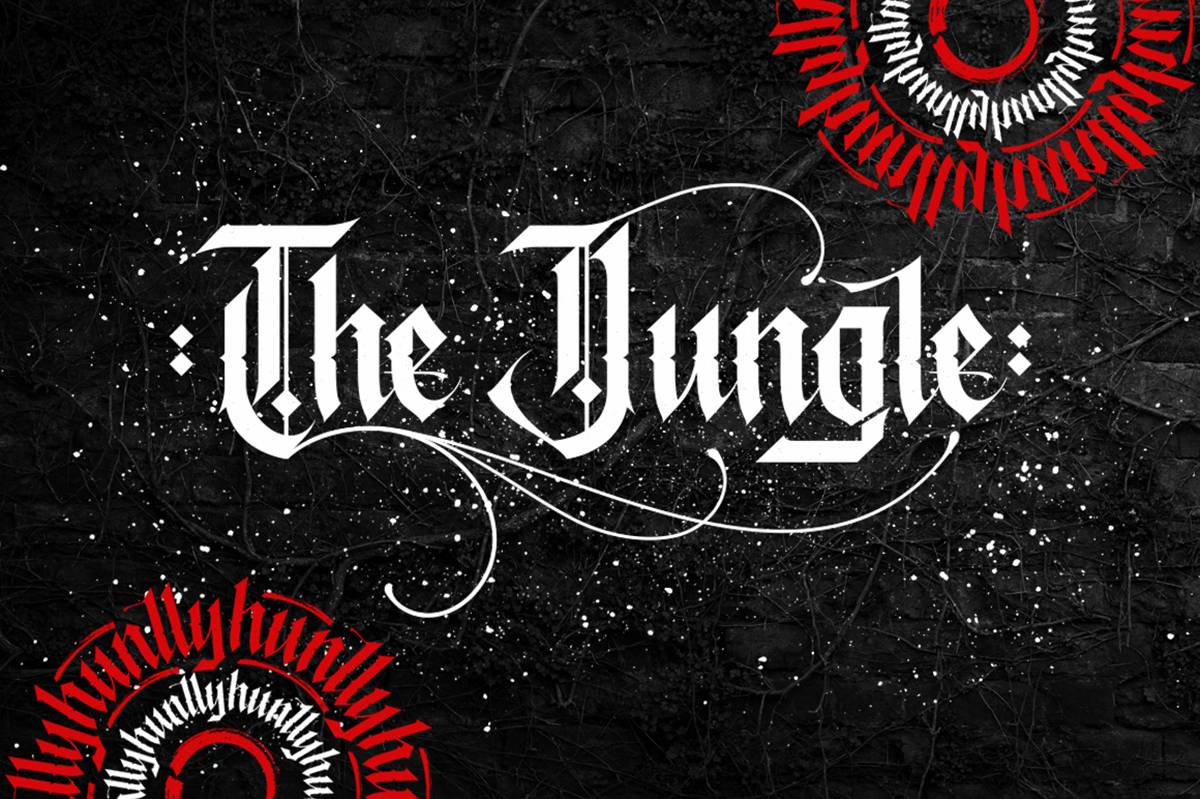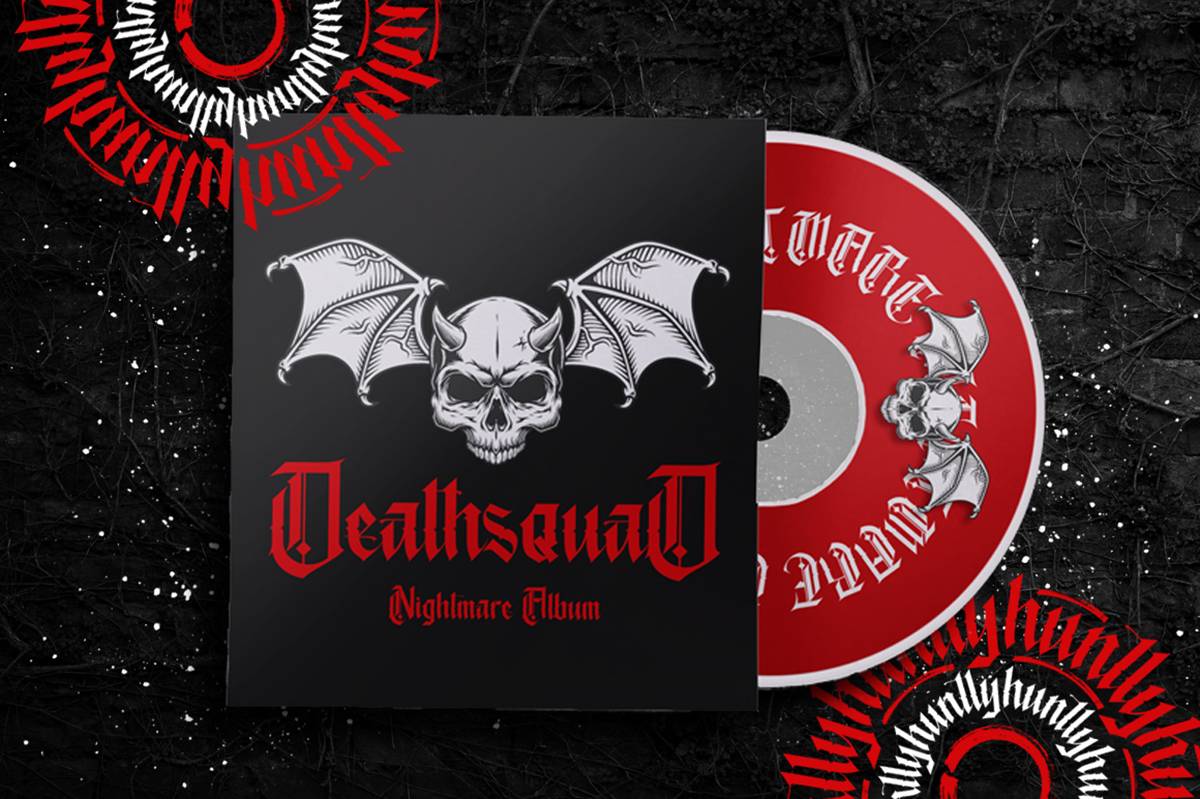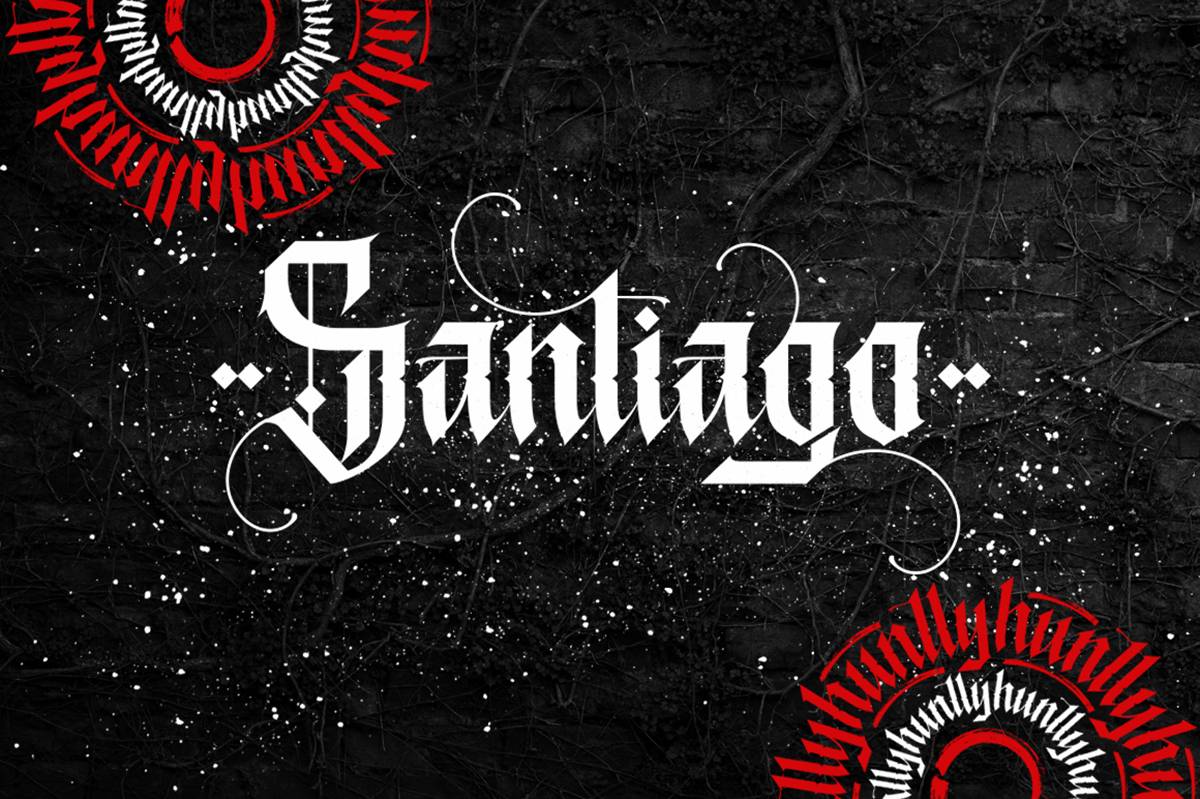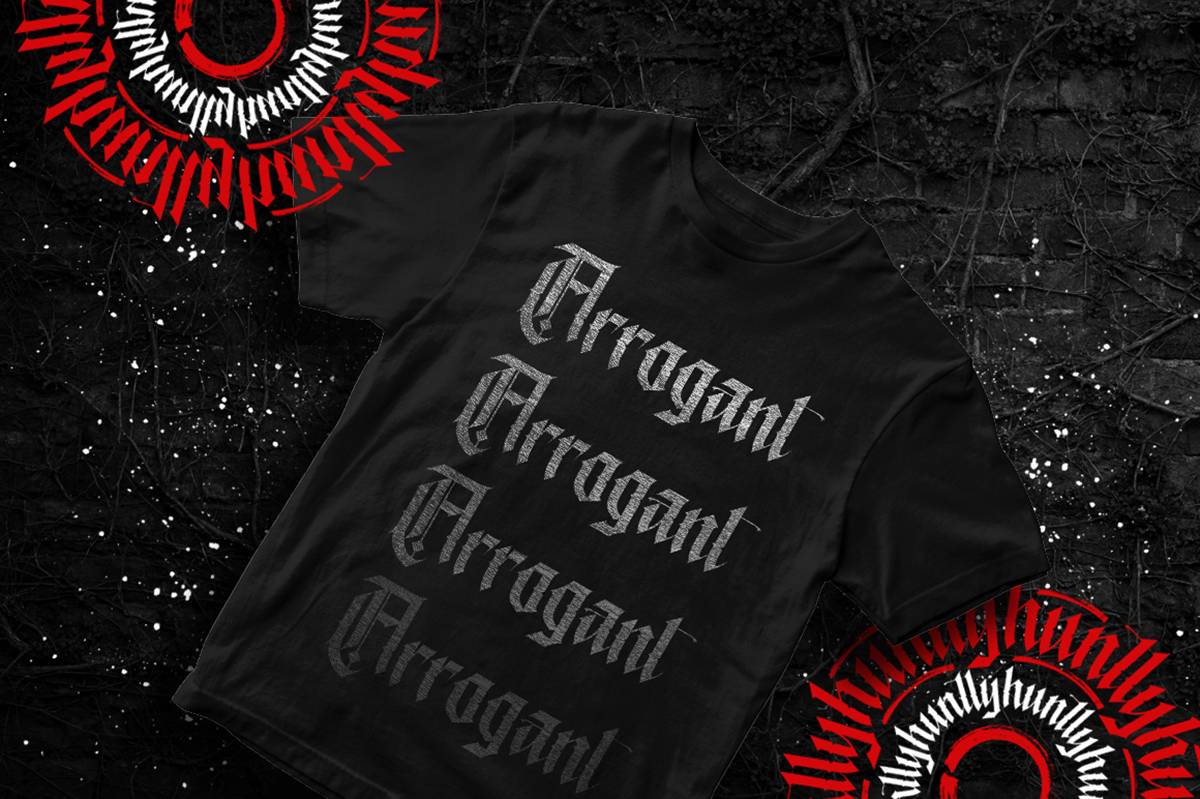
Huntly is a bold blackletter-style font with sharp, angular strokes and intricate details that evoke a strong gothic, medieval feel. Its high contrast and condensed letterforms give it a dramatic, authoritative presence, making it perfect for vintage-inspired branding, logos, posters, or editorial headlines where a striking, historic look is desired. This font excels in designs aiming to communicate intensity, tradition, and bold personality.
Huntly Font
About Huntly Font